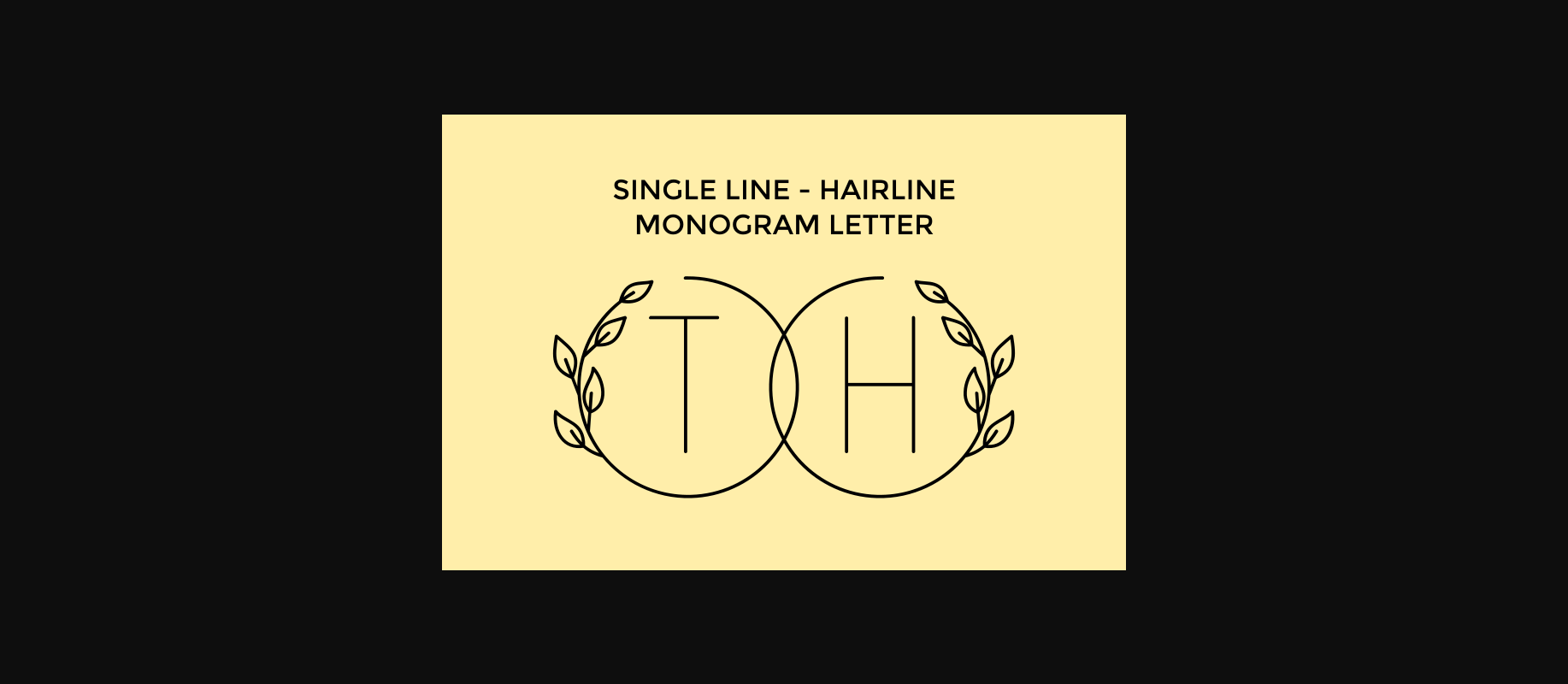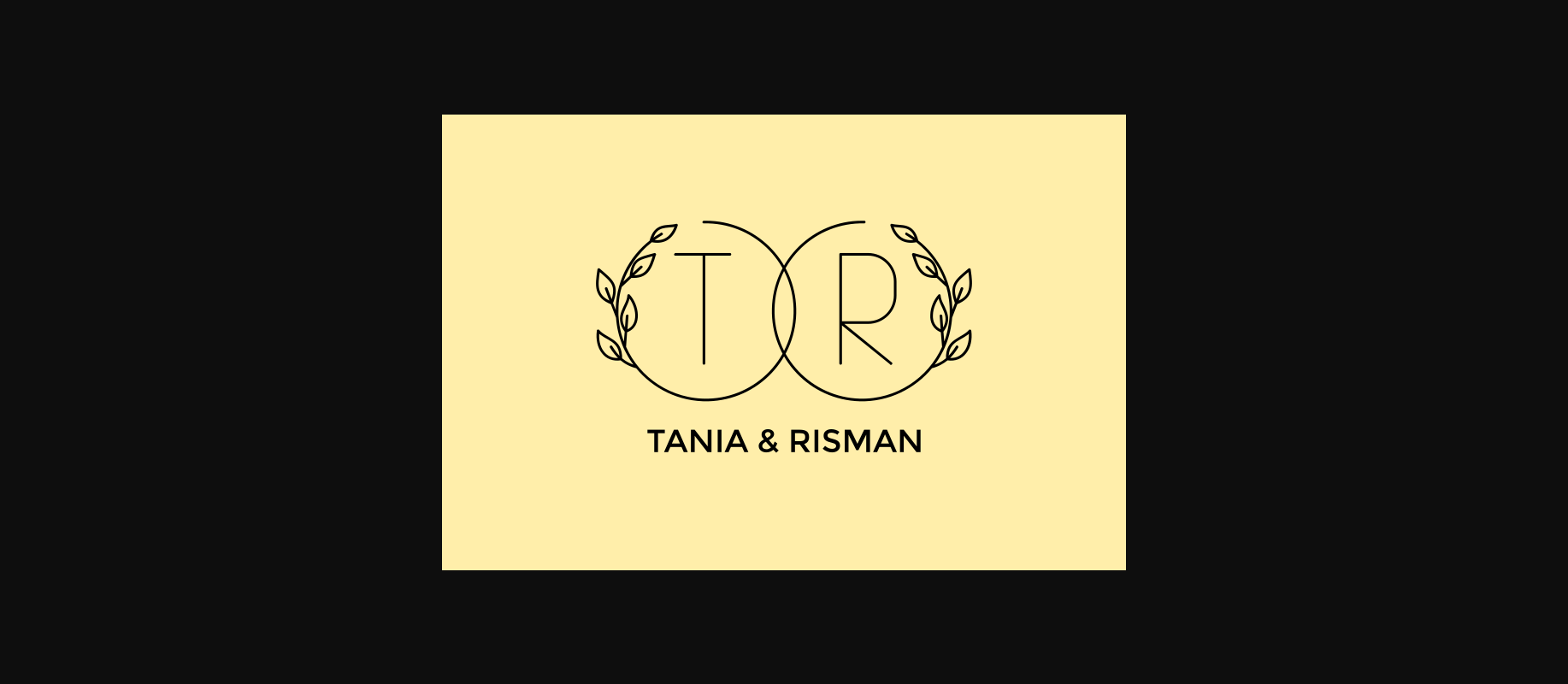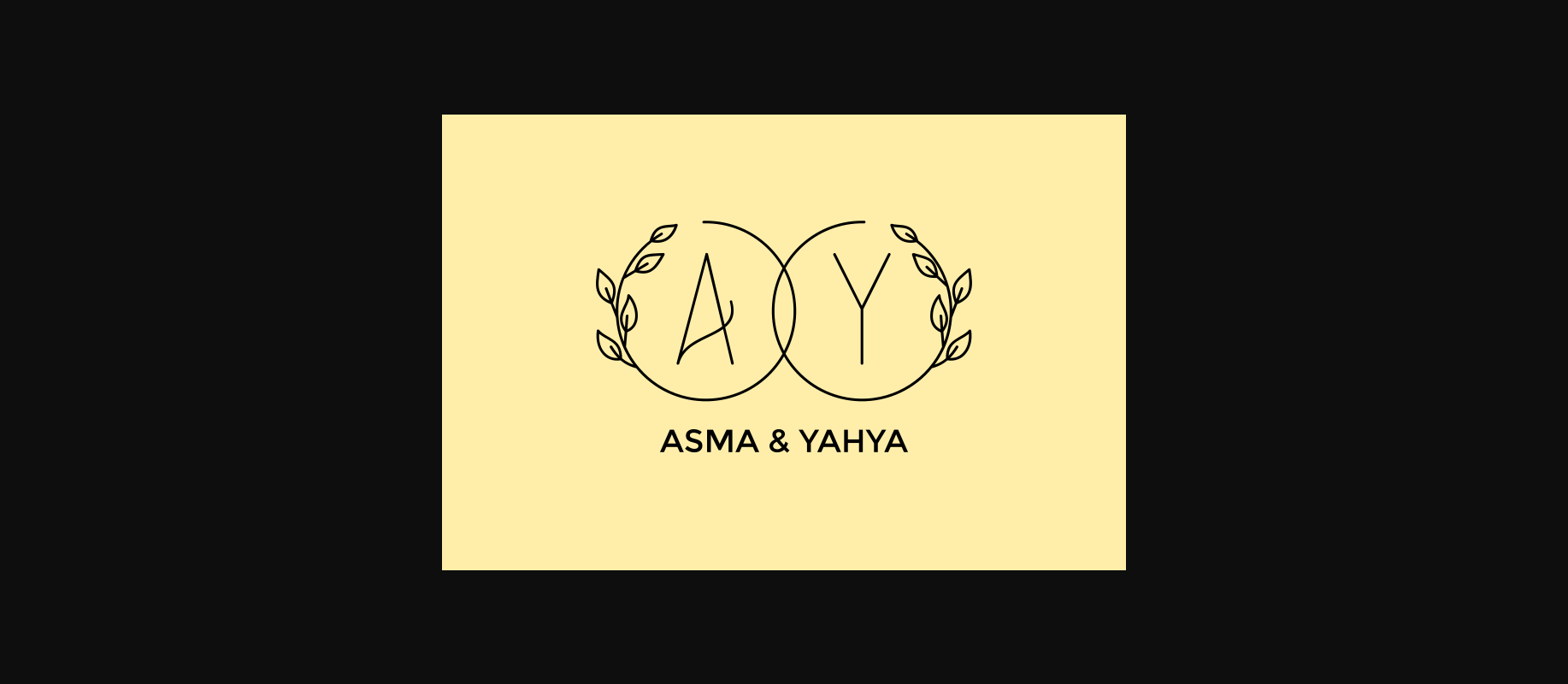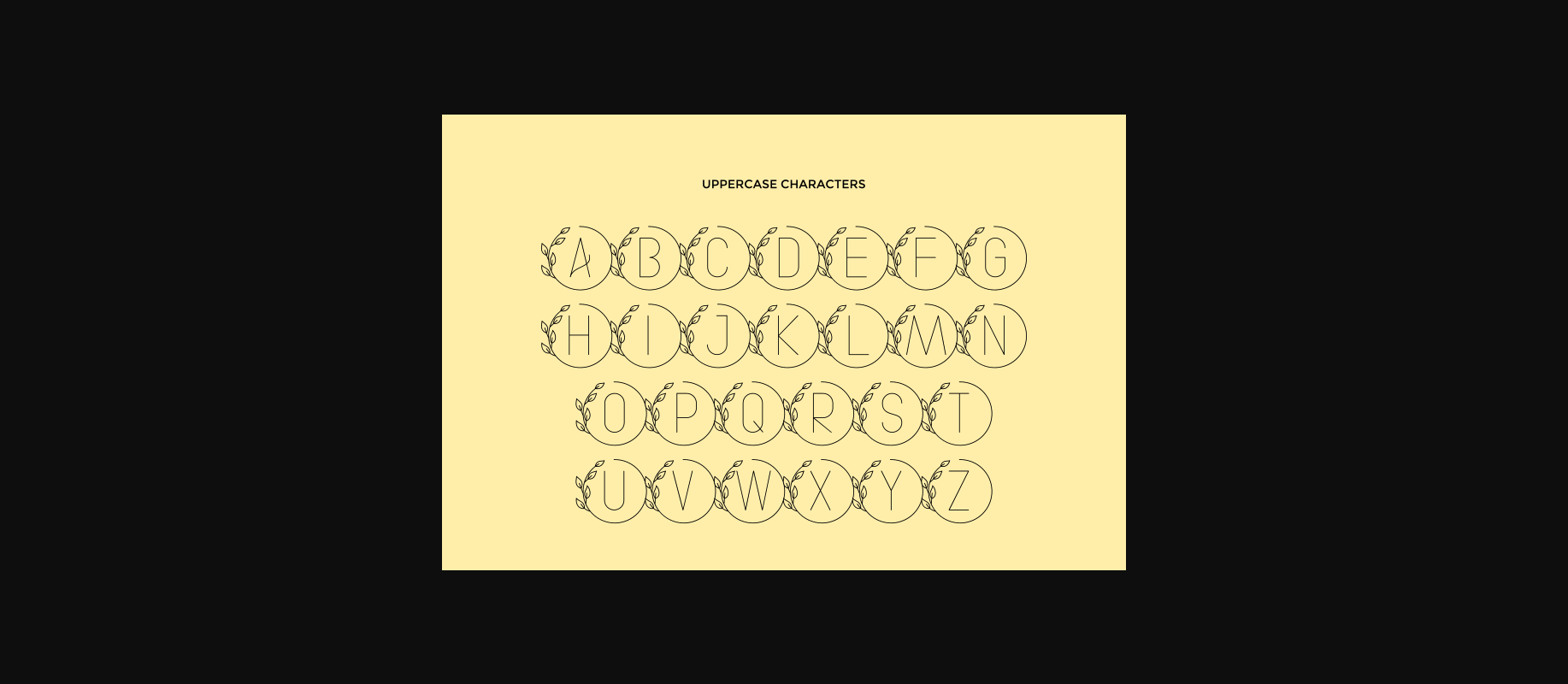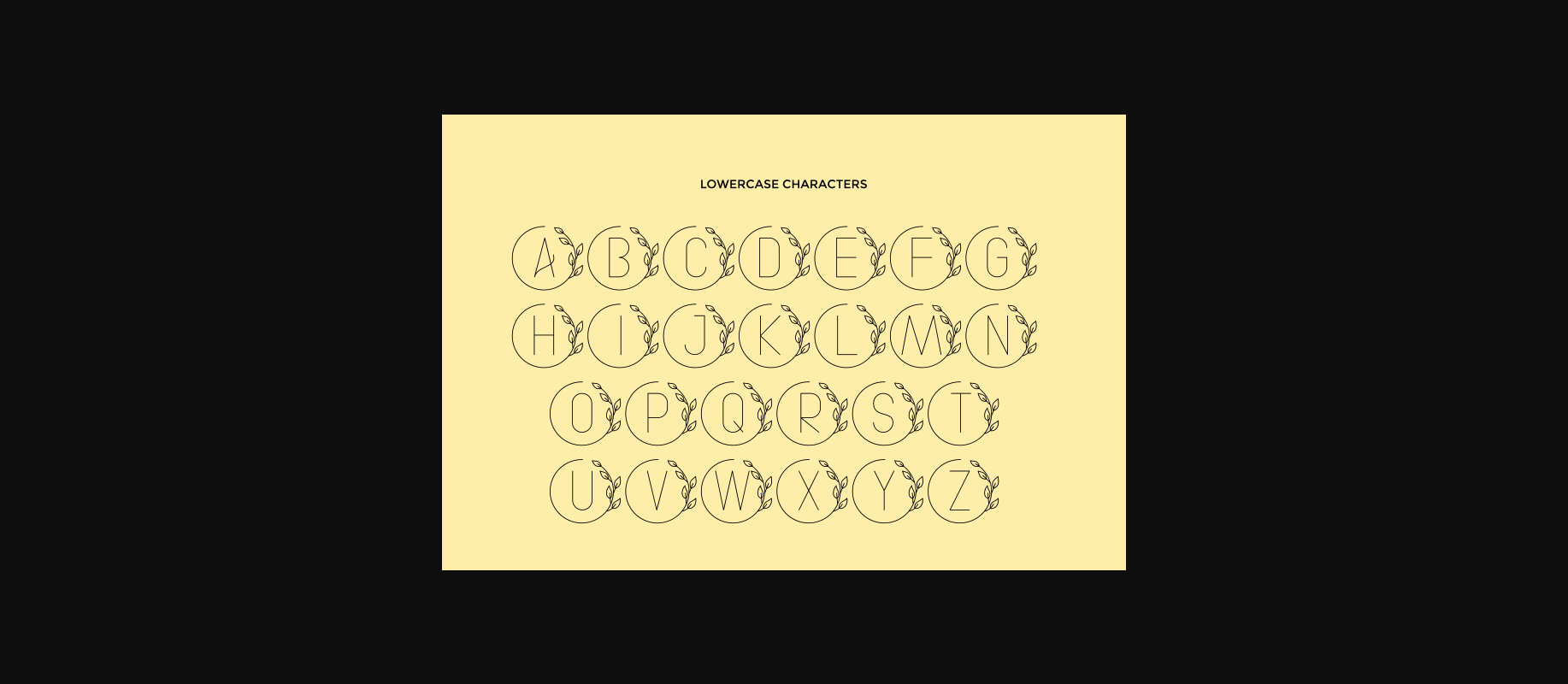
Circle Line Font
About Circle Line Font
Create gorgeous and timeless designs with Circle Line , an interesting and unique decorative font.
Fall in love with its incredibly stylish look and use it for logos, quotes, invitations, business cards, power point presentations, and more!